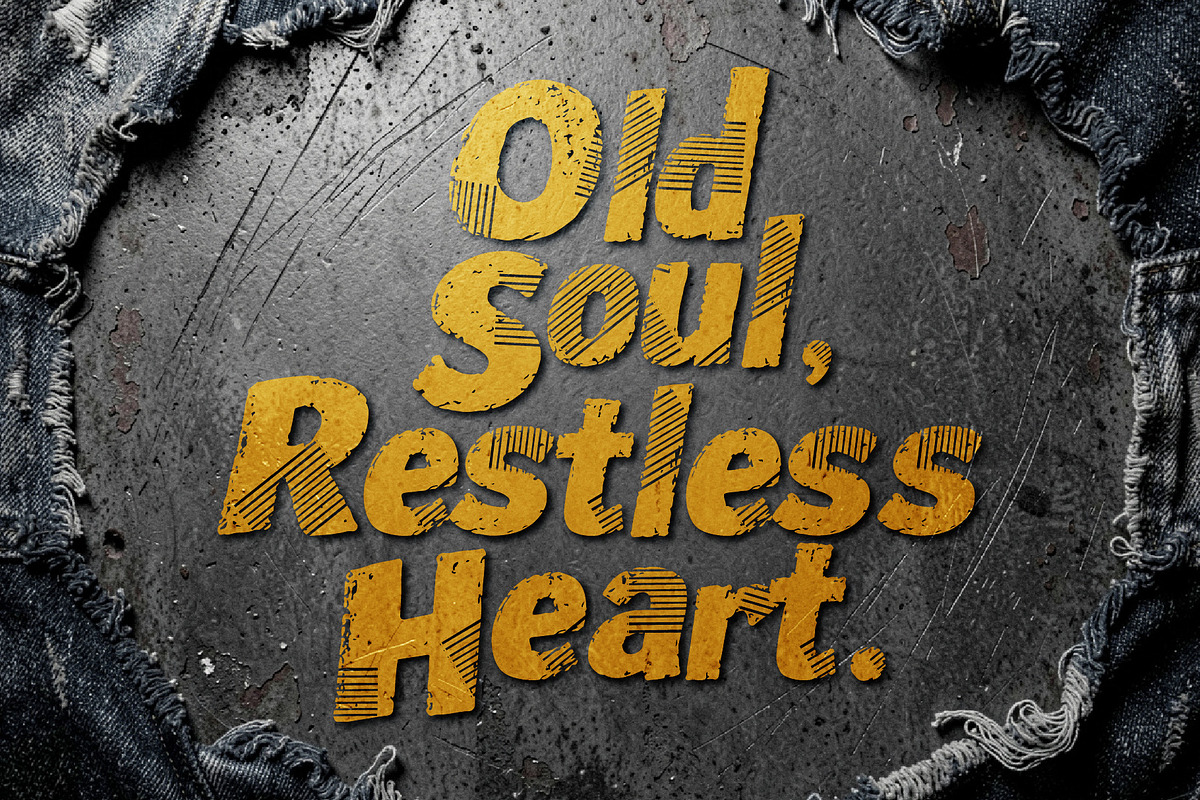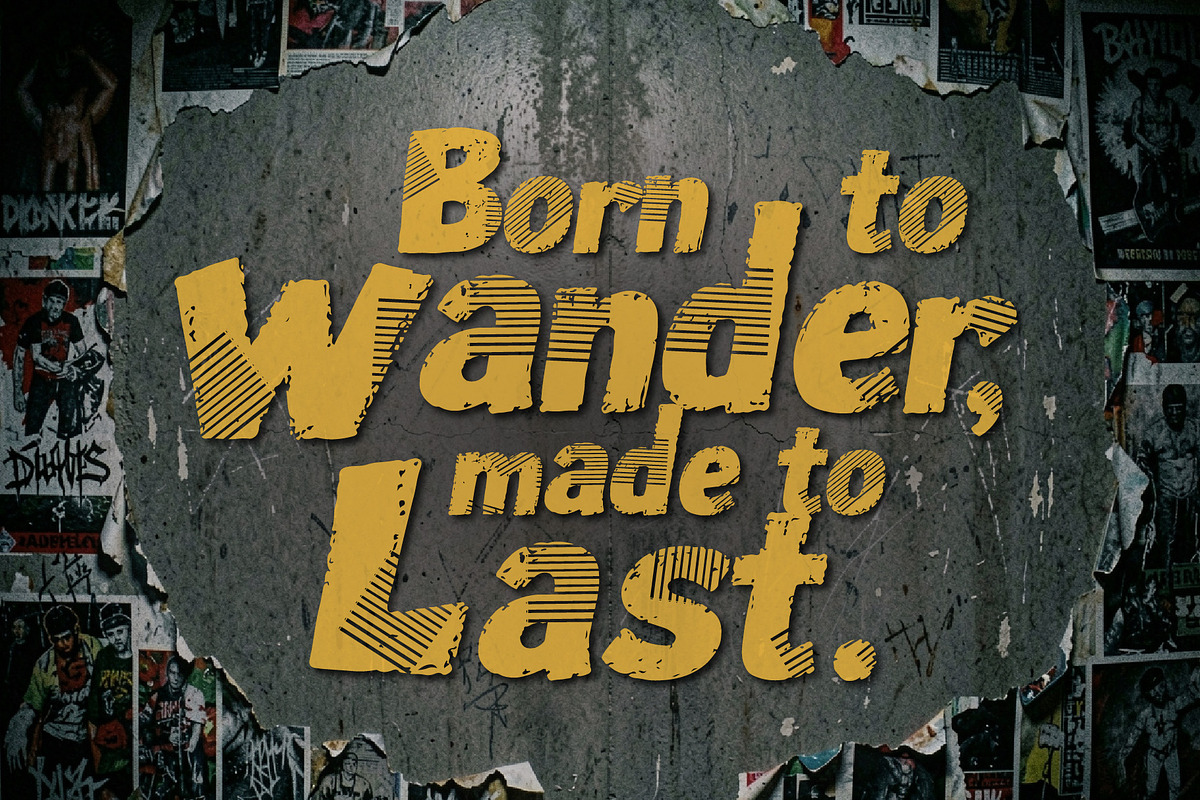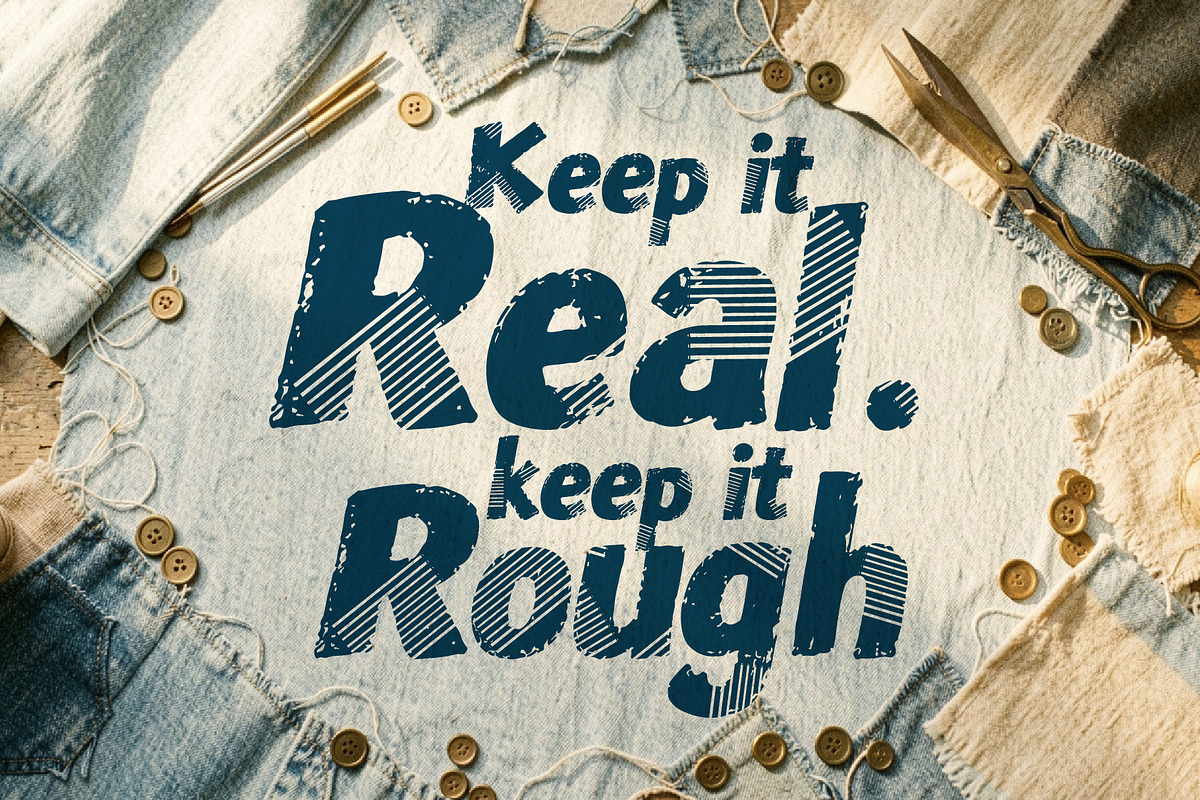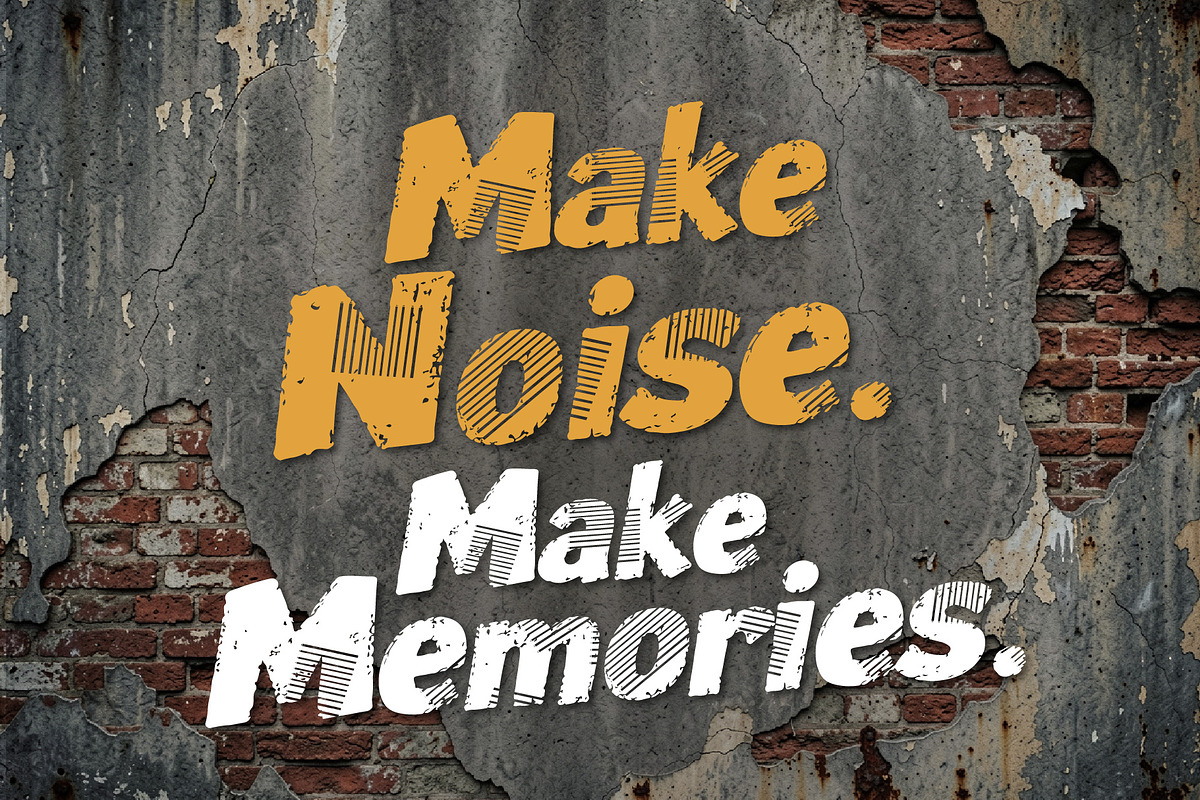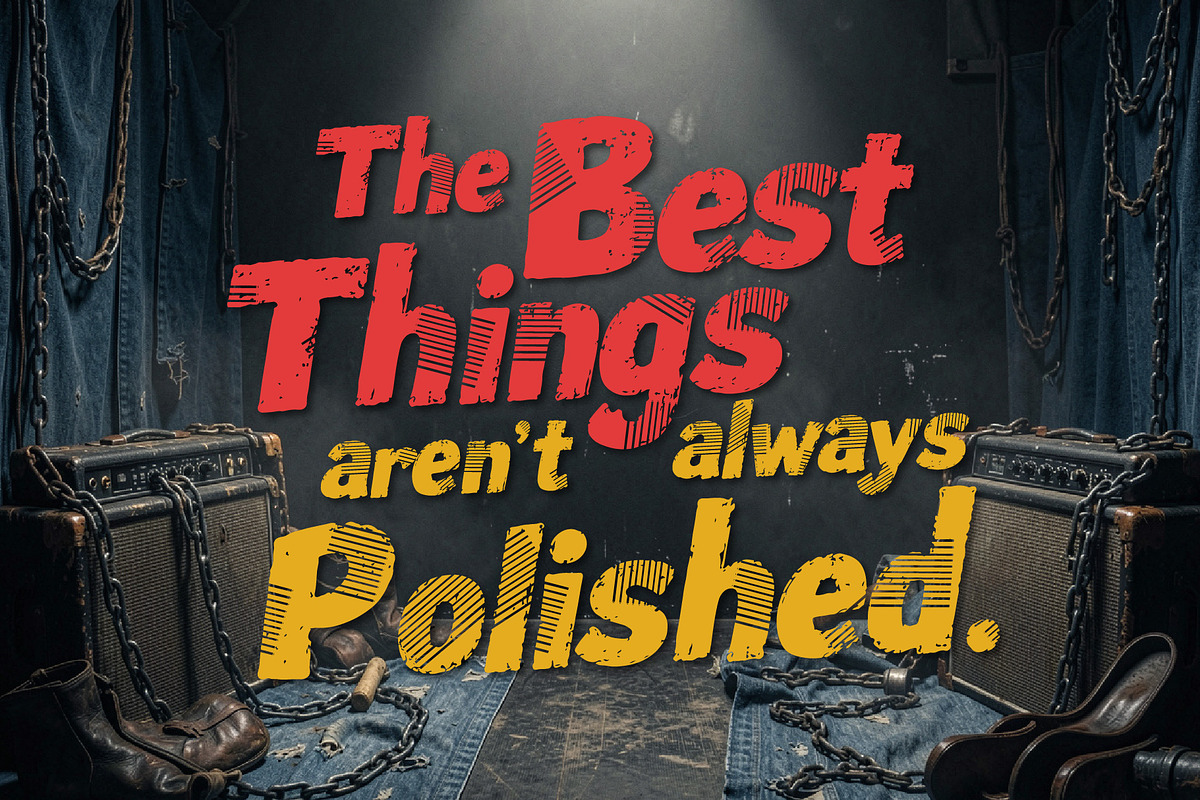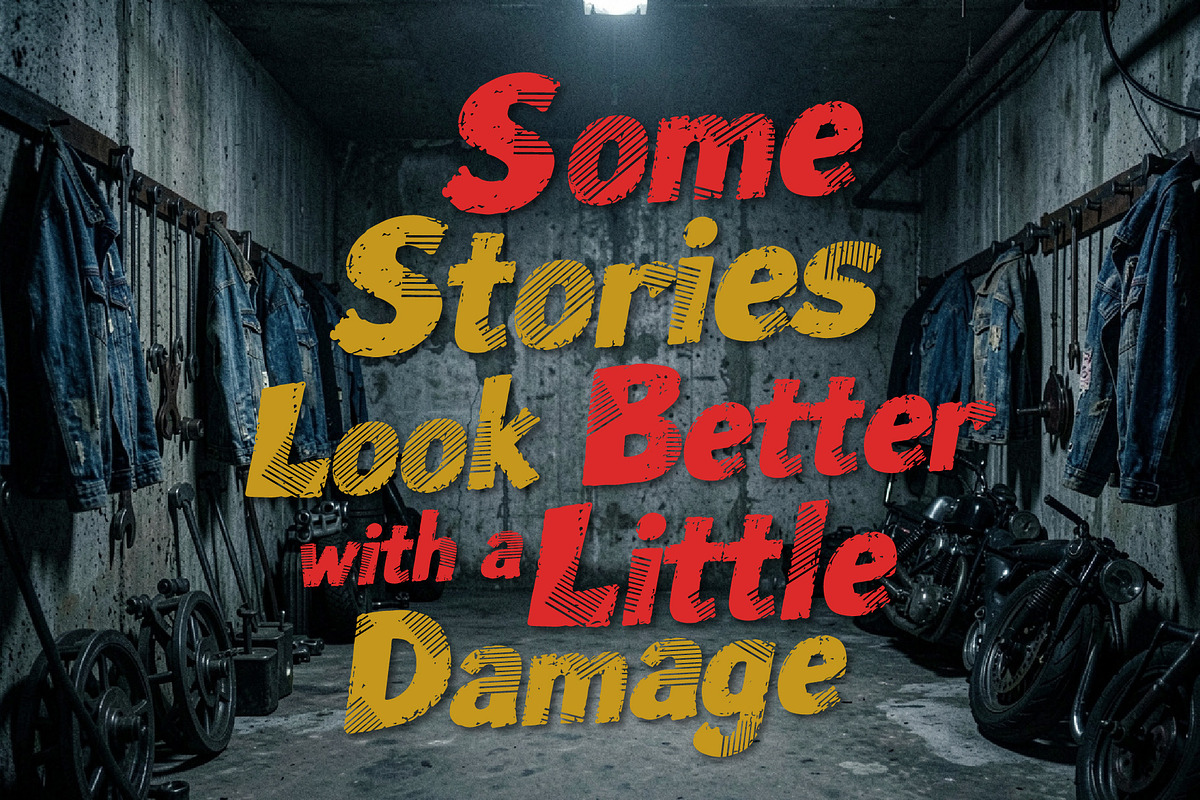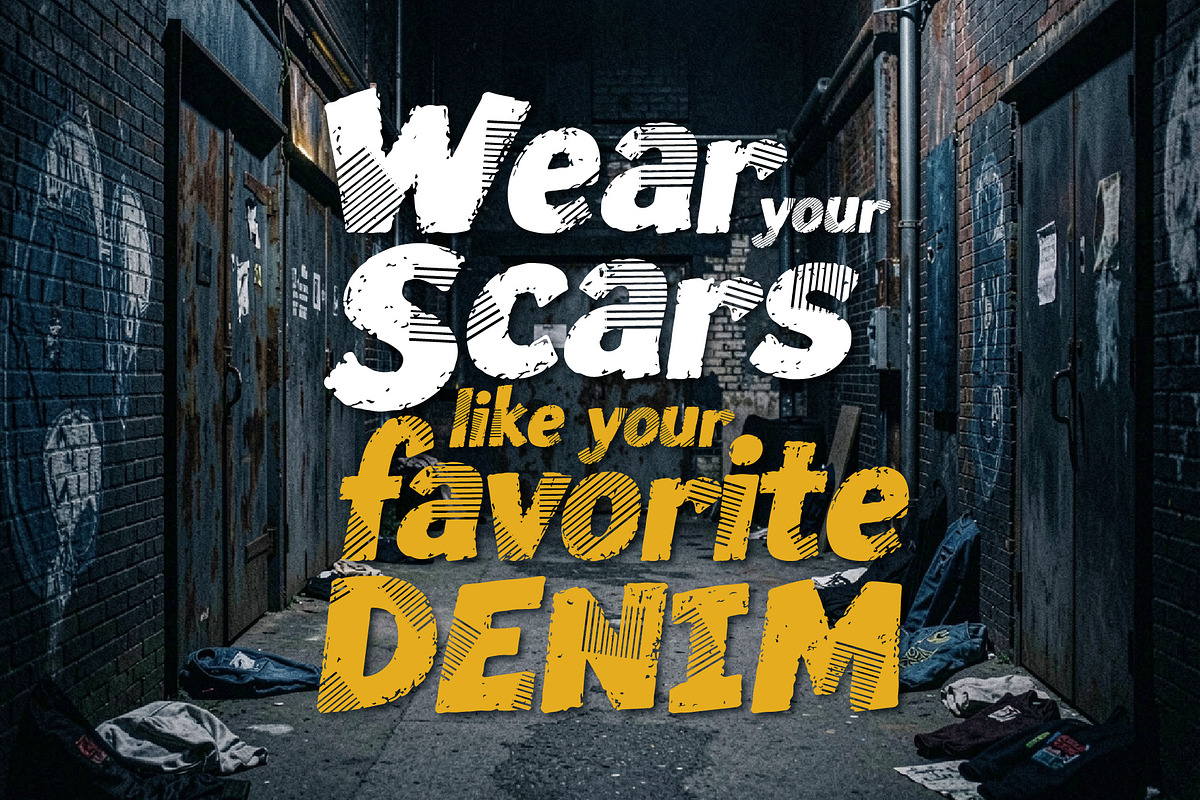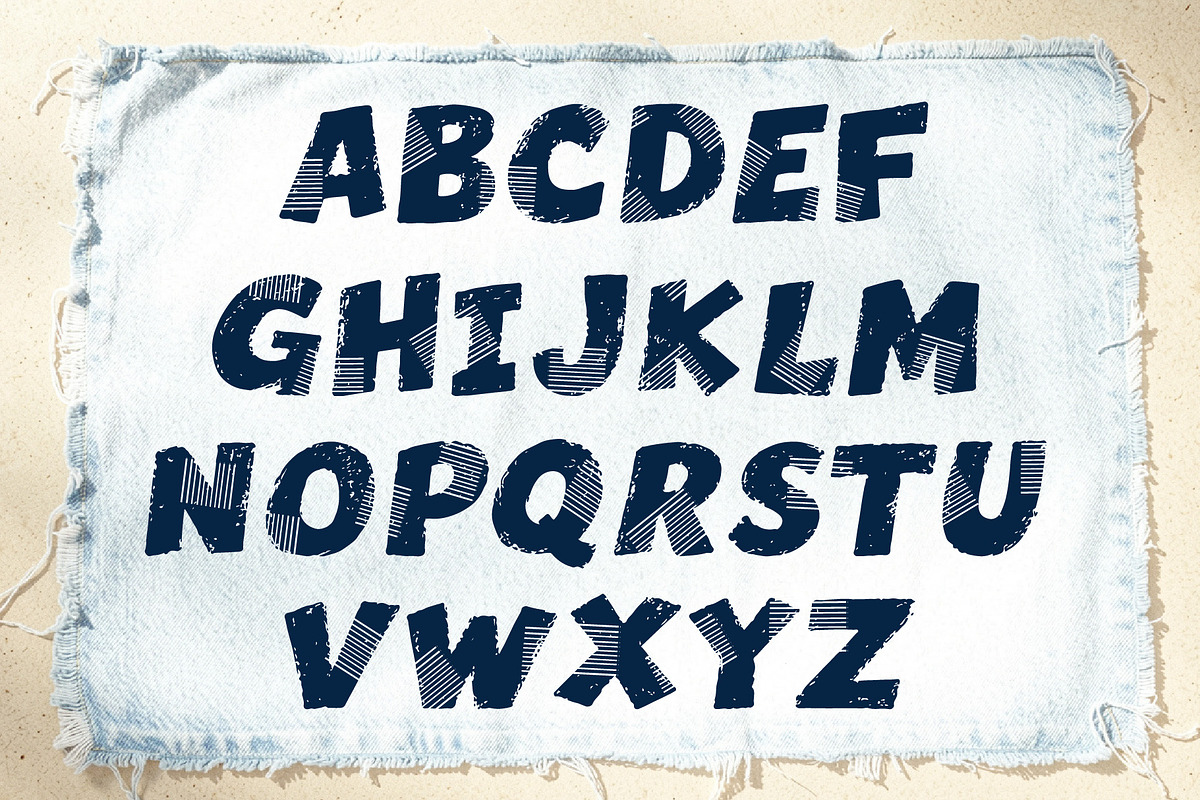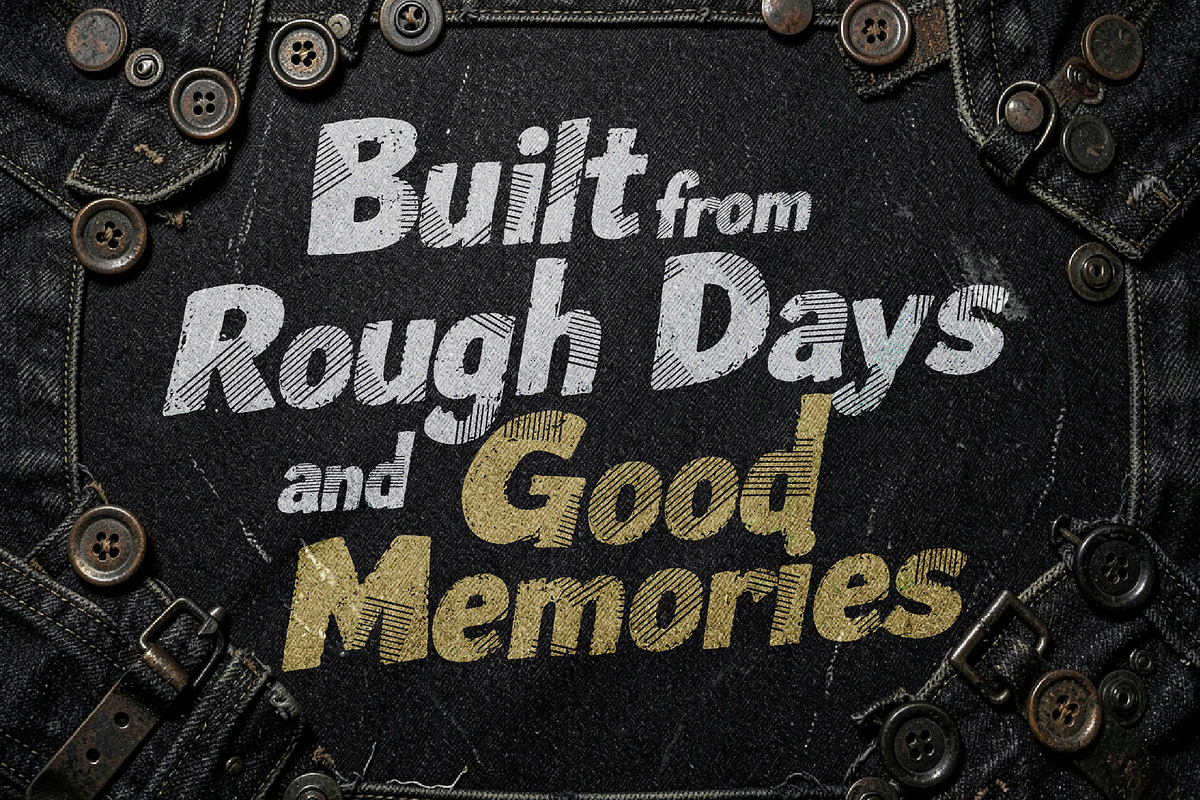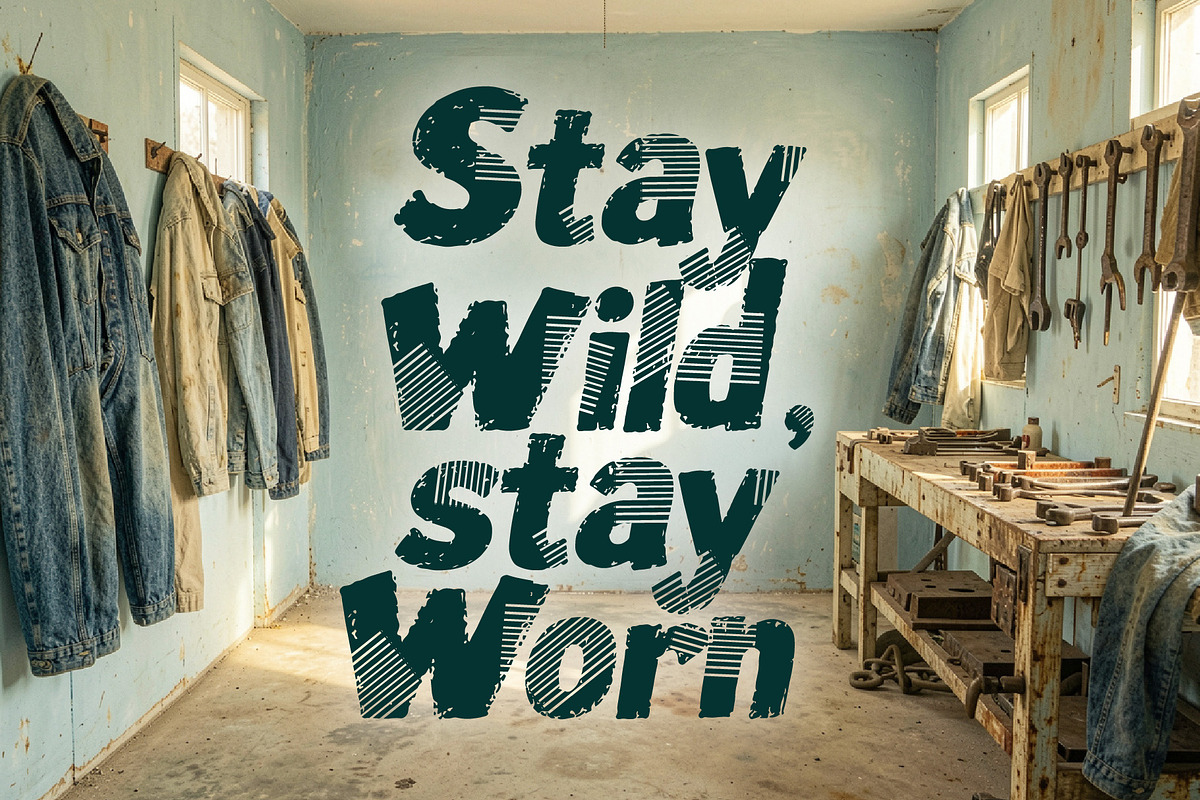
Bead Roks Denim - Built Rough
Bead Roks Denim is a bold distressed display typeface built for raw attitude and vintage street energy. Inspired by worn denim, rugged screen prints, rebellious graphics, and underground fashion, this typeface combines heavy letterforms with distressed edges and distinctive diagonal stripe detailing.
Its rough texture gives every word an authentic, weathered character, while the bold construction keeps your typography powerful and highly visible. From denim jackets and streetwear collections to posters, album covers, skate graphics, labels, and merchandise, Bead Roks Denim brings an unmistakable handmade attitude to your designs.
Wear it loud. Print it rough. Make it yours.